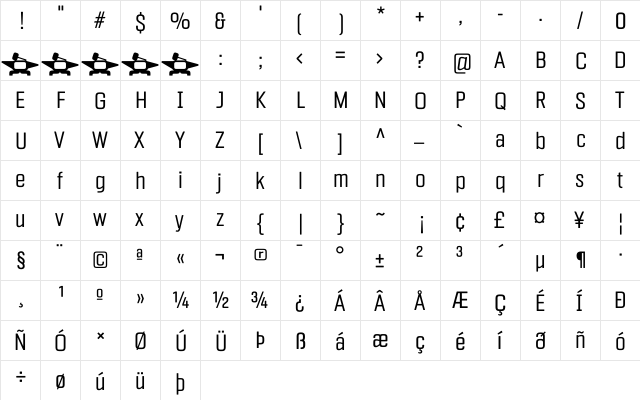
Fragua Light Regular Font Preview
Fragua Light Regular
Fragua Light Regular Font Details
| Foundry | deFharo |
| Designer | Fernando Haro |
Design Context for Fragua Light Typeface
Fragua Light offers clean, dependable letterforms without strong stylistic allegiance, making it a practical choice for designers who need flexibility. The delicate stroke weight brings airiness and refinement to layouts.